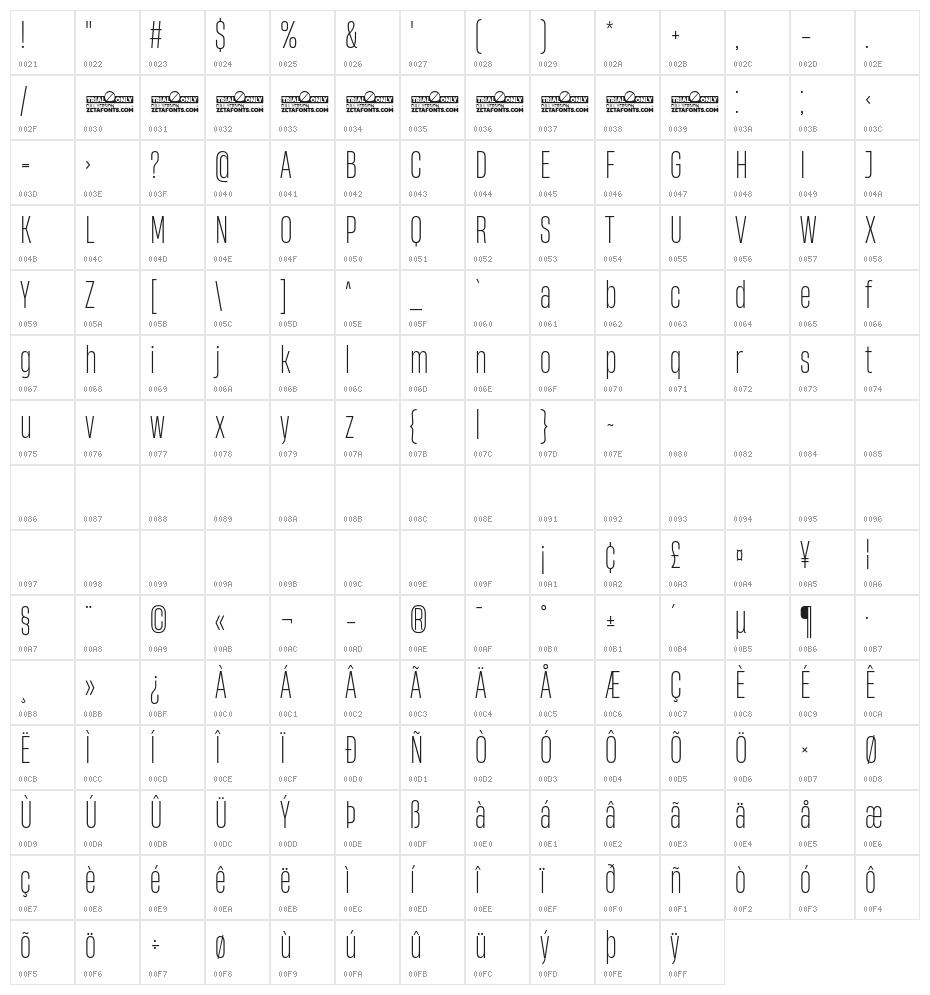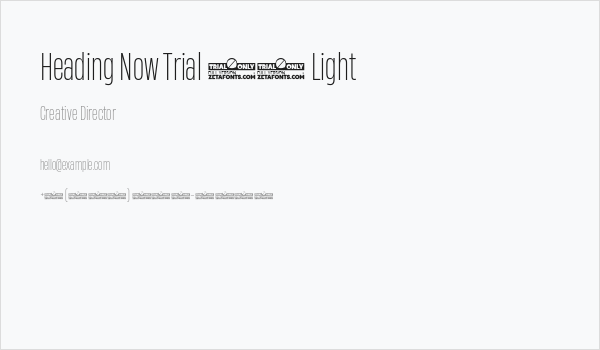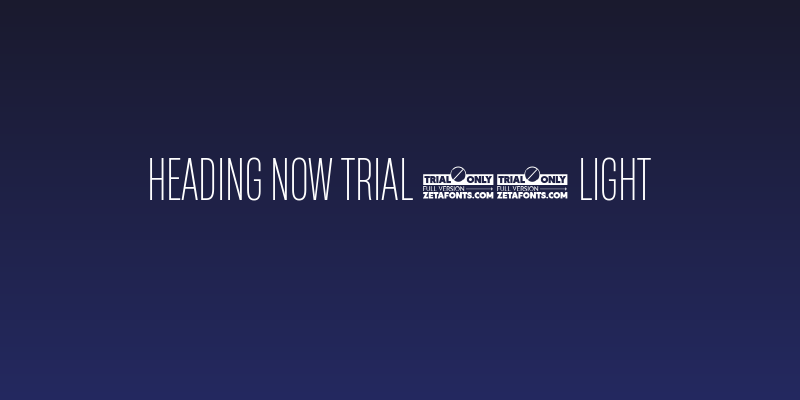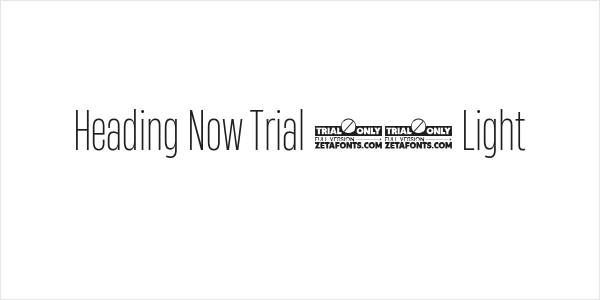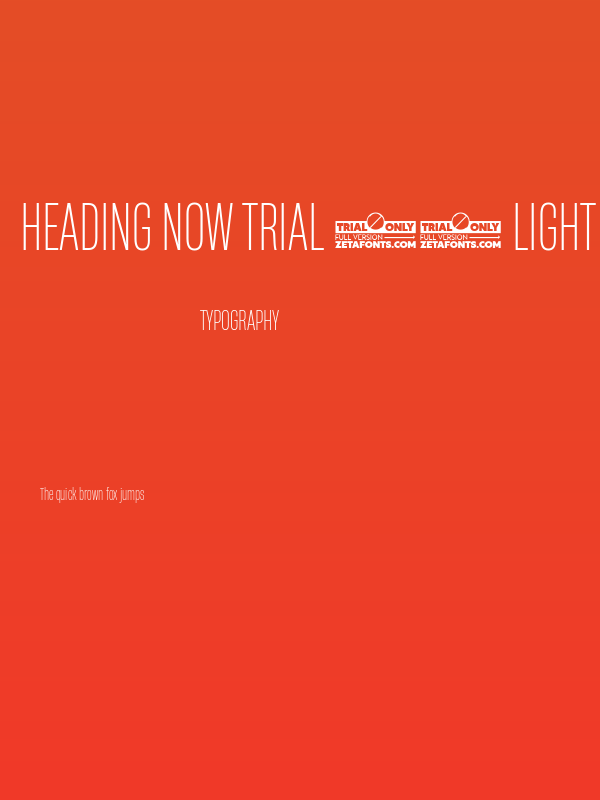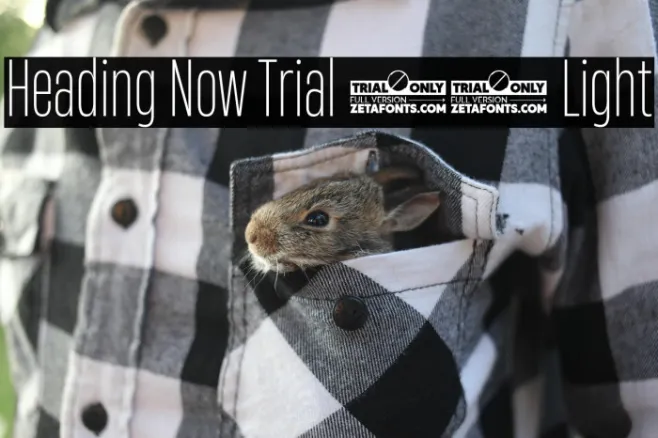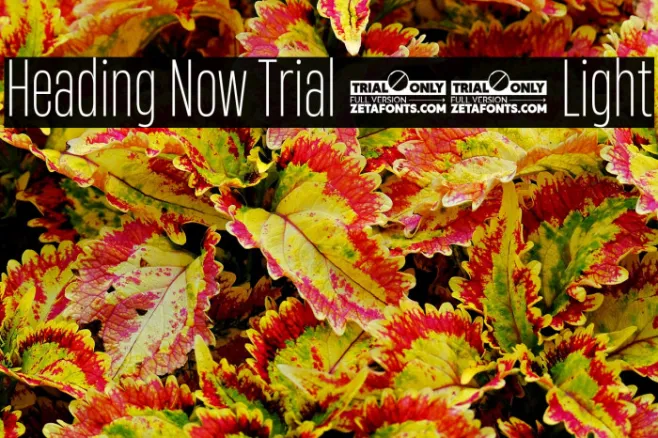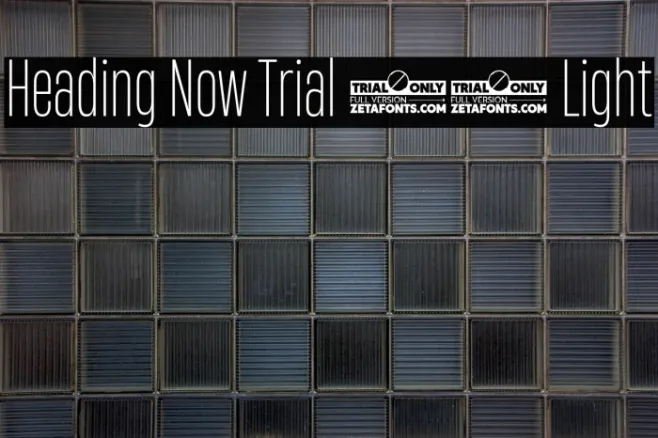
Heading Now Trial 32 Light Font
Heading Now Trial 32 Light Description
This font features a sleek and modern design with tall, narrow characters that exhibit a clean and minimalist aesthetic. The uppercase and lowercase letters maintain a consistent height and width, creating a uniform appearance. The font's thin strokes and geometric shapes give it a contemporary feel, making it suitable for various design applications. The numerals and special characters are designed with the same precision, ensuring readability and style. Overall, this font's light weight and condensed form make it ideal for projects that require a sophisticated and elegant touch.
| Proposed Projects | Ideal for branding, editorial design, digital interfaces, and minimalist posters. |